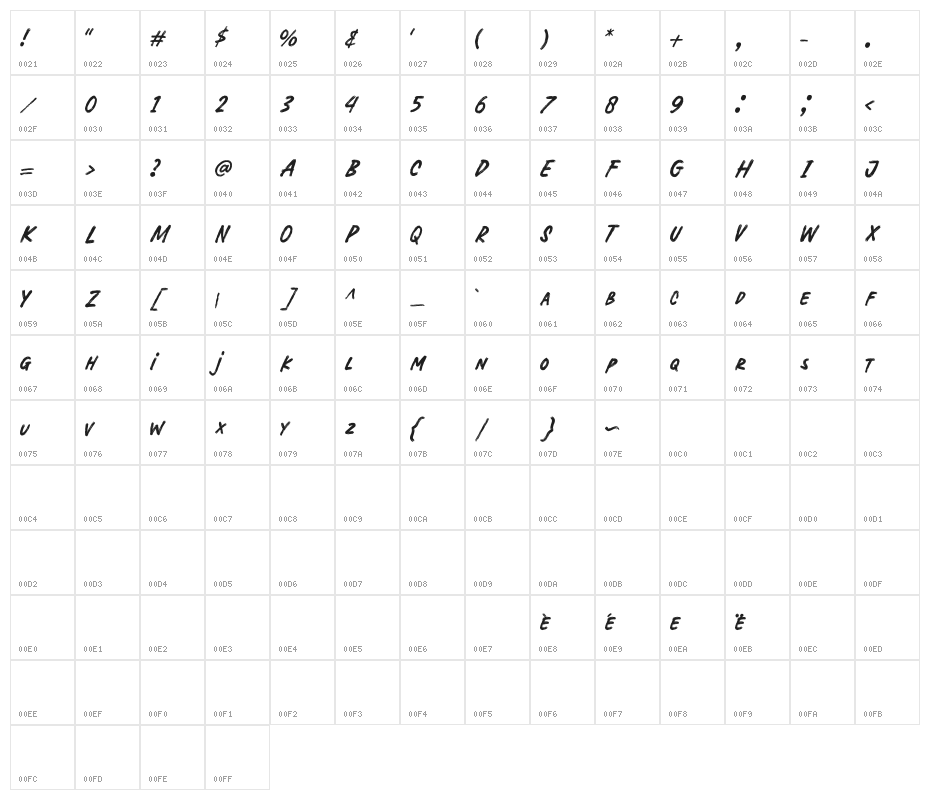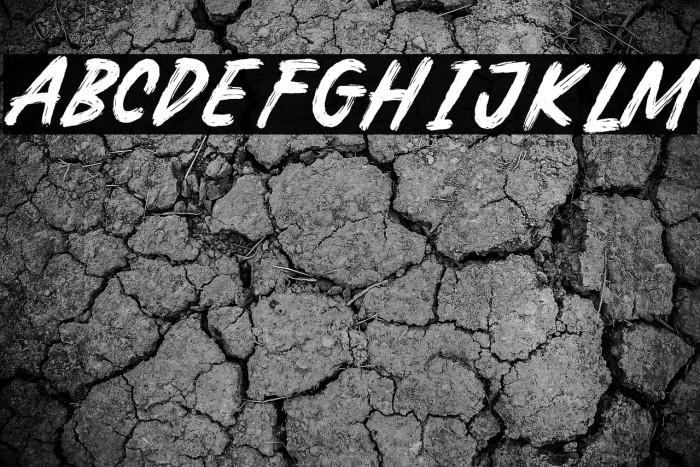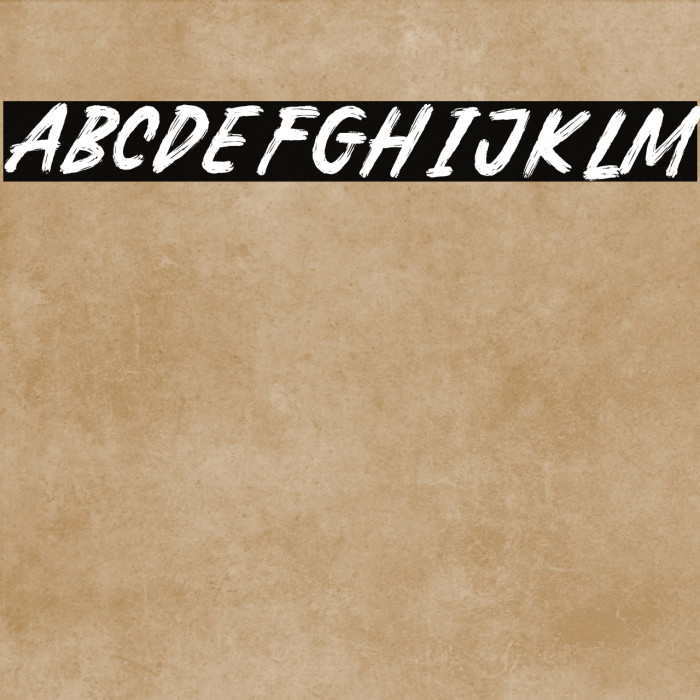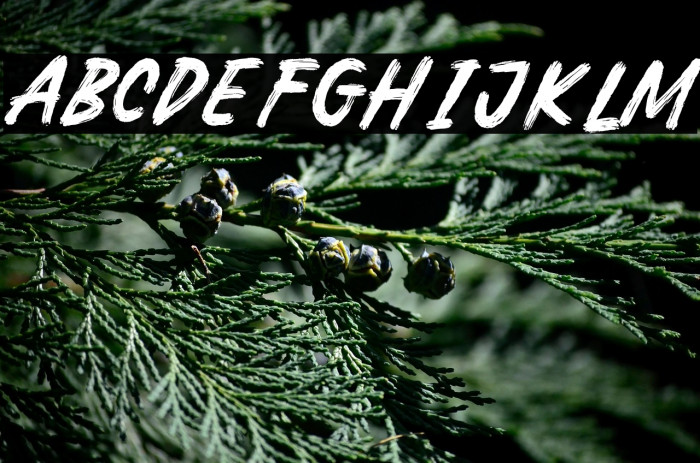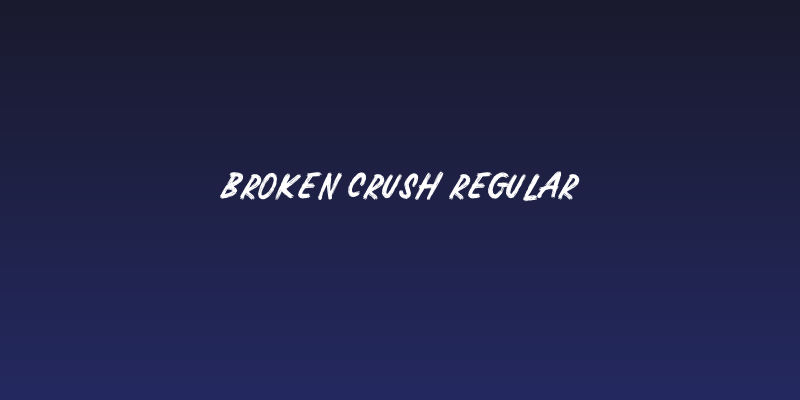
Broken Crush Regular Font
Broken Crush Regular Description
This font features a bold, brush-like appearance with a dynamic and energetic style. The strokes are uneven and textured, giving it a hand-painted look that adds a sense of movement and spontaneity. The uppercase and lowercase letters maintain a consistent style, with slightly exaggerated curves and angles that contribute to its artistic flair. The numbers and special characters follow the same aesthetic, ensuring a cohesive look across all glyphs. This font is ideal for projects that require a bold and expressive touch, such as posters, branding, and creative designs.
| Proposed Projects | Ideal for posters, branding, creative designs, and any project needing an expressive touch. |